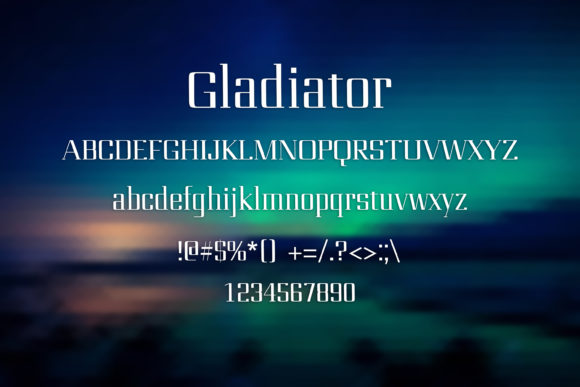
Unleash the Power of Gladiator Font: A Timeless Serif Style for Your Designs
Are you tired of using the same old fonts for your design projects? Look no further than the Gladiator Font, a stunning serif style that is sure to make your work stand out. With its unique blend of vintage charm and editorial elegance, this display font is perfect for a wide range of design applications. In this article, we’ll take a closer look at the features of Gladiator Font and explore how you can use it to elevate your designs.
What is Gladiator Font?
Gladiator Font is a beautifully crafted serif font that boasts a distinctive, one-of-a-kind style. Its gorgeous serif design makes it perfect for use in display text, headlines, and titles, where you want to make a bold statement. The font’s classic, timeless look is reminiscent of traditional printing techniques, making it an excellent choice for vintage-inspired projects.
Key Features of Gladiator Font
So, what sets Gladiator Font apart from other fonts? Here are some of its key features:
- Unique Serif Style: Gladiator Font features a stunning serif design that is both elegant and eye-catching.
- Vintage Charm: The font’s classic look makes it perfect for use in vintage-inspired projects, such as posters, flyers, and brochures.
- Editorial Feel: Gladiator Font also has an editorial feel, making it suitable for use in magazines, newspapers, and other publications.
- Display Font: This font is designed specifically for use in display text, headlines, and titles, where you want to make a bold statement.
How to Use Gladiator Font in Your Designs
Gladiator Font is incredibly versatile and can be used in a wide range of design applications. Here are some ideas to get you started:
- Vintage Posters: Use Gladiator Font to create eye-catching posters with a vintage flair.
- Magazine Headlines: Add an editorial touch to your magazine headlines with Gladiator Font.
- Wedding Invitations: The font’s elegant serif style makes it perfect for use in wedding invitations and other formal stationery.
- Logos and Branding: Use Gladiator Font to create a unique and memorable logo for your brand.
Tips for Getting the Most Out of Gladiator Font
To get the most out of Gladiator Font, here are some tips to keep in mind:
- Use it sparingly: Because Gladiator Font is a display font, it’s best to use it sparingly to avoid overwhelming your design.
- Experiment with colors: Try pairing Gladiator Font with different colors to create a unique and eye-catching effect.
- Mix and match: Don’t be afraid to mix and match Gladiator Font with other fonts to create a visually interesting design.
Gladiator Font is a truly unique and versatile font that can add a touch of elegance and sophistication to your designs. With its stunning serif style and vintage charm, it’s perfect for use in a wide range of design applications. Whether you’re a designer, craft, or DIY enthusiast, Gladiator Font is sure to become a valuable addition to your font collection.